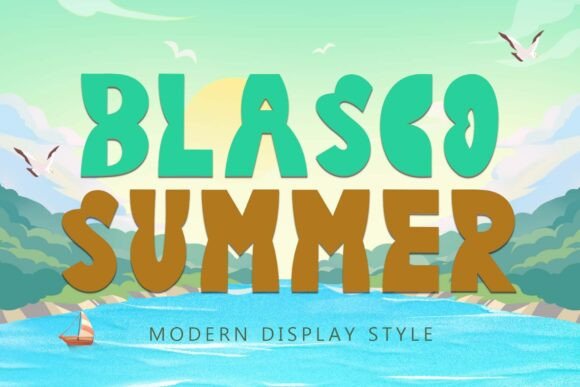
The Summer Vibes of Blasco Summer Font
I’ll never forget the summer I spent working on a branding project for a beachside resort. My client wanted a font that screamed “summer fun,” but I was stuck in a creative rut. That’s when I stumbled upon the Blasco Summer font. Its elegant, yet playful vibe instantly transported me to a sunny beach, and I knew I had found the perfect fit. In this article, I’ll dive into the world of Blasco Summer, exploring its features, uses, and some helpful tips for getting the most out of this beautiful display font.
A First Impression: What I Love About Blasco Summer
So, what makes Blasco Summer so special? Here are a few things that caught my attention:
• ✨ Unique and elegant design: Blasco Summer boasts a distinctive style that’s perfect for making a statement.
• ✅ Multilingual support: This font has got you covered, whether you’re working on a project for a global audience or simply want to add some international flair.
• ✅ Comprehensive character set: Uppercase, lowercase, numerals, punctuations – Blasco Summer has everything you need to create stunning text-based designs.
No font is perfect, and Blasco Summer is no exception. Here are a few things to keep in mind:
• 🤔 Limited use cases: As a display font, Blasco Summer works best in large sizes. It might not be the best choice for body text or smaller designs.
• ⚠️ Glyphs and OpenType features: While Blasco Summer supports OpenType features, some users might find the glyphs a bit tricky to navigate. Don’t worry – with a little practice, you’ll get the hang of it!
The Story Behind Blasco Summer
According to its creators, Blasco Summer was inspired by the carefree spirit of summer. The font’s elegant lines and playful curves evoke the feeling of a sunny day at the beach. Whether you’re designing for a summer camp, a beachside resort, or simply want to add some seasonal flair to your project, Blasco Summer is the perfect choice.
Is Blasco Summer suitable for body text? While Blasco Summer is a beautiful font, it’s best suited for display text. For body text, you may want to choose a font with better readability.